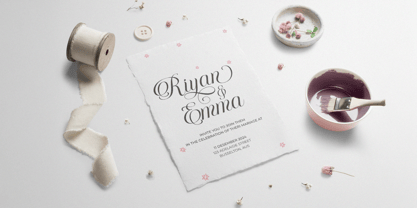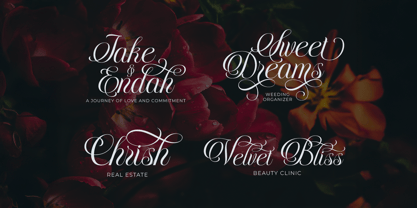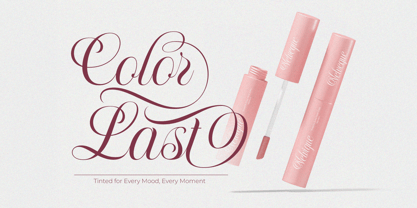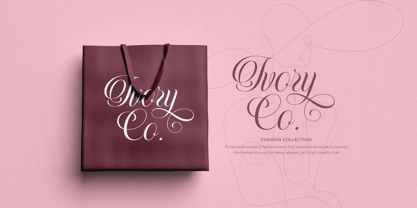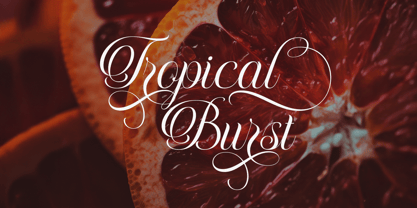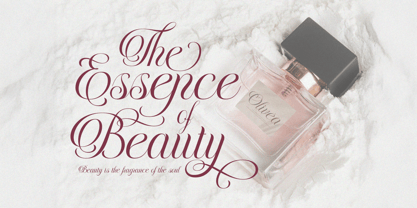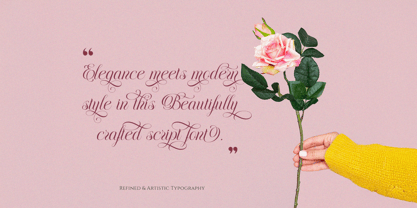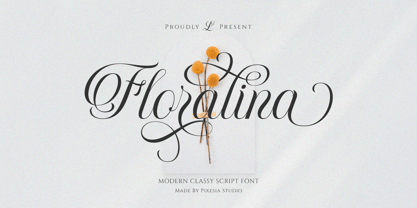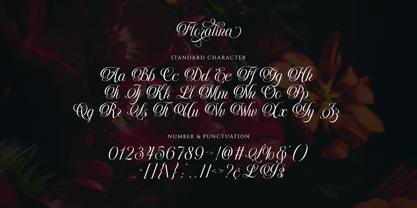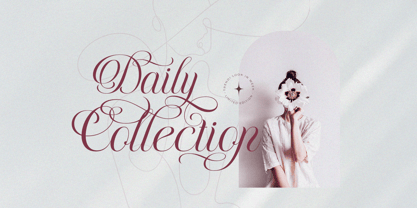
Floralina
by Pixesia Studio
The Floralina Font Family was designed by Abul Almaududi and published by Pixesia Studio. Floralina contains 1 styles. More about this family
Introducing Floralina - Modern Cursive Script Font Floralina is a modern cursive script font with elegant, feminime and flowing letterforms. It combines elegance and a handwritten feel, making it ideal for adding a personal touch to your designs. Floralina is ideal for branding, logotypes, wedding invitations, romantic quotes, social media posts, advertisements, product packaging, photography, and any project seeking a premium quality, luxury, and aesthetic touch. FEATURES - Stylistic Alternates - Ligatures - Uppercase and Lowercase letters - Numbering and Punctuations - Works on PC or Mac - Simple Installation - PUA Encoded Characters - Easily accessible without additional design software. - Support Adobe Illustrator, Adobe Photoshop, Adobe InDesign, also works on Microsoft Word - Multilingual Support including Afrikaans, Albanian, Basque, Catalan, Danish, Dutch, English, Estonian, Faroese, Filipino, Finnish, French, Galician, German, Icelandic, Indonesian, Irish, Italian, Malay, Norwegian Bokmål, Portuguese, Spanish, Swahili, Swedish, Zulu Hope you Like it. Thanks.
Floralina